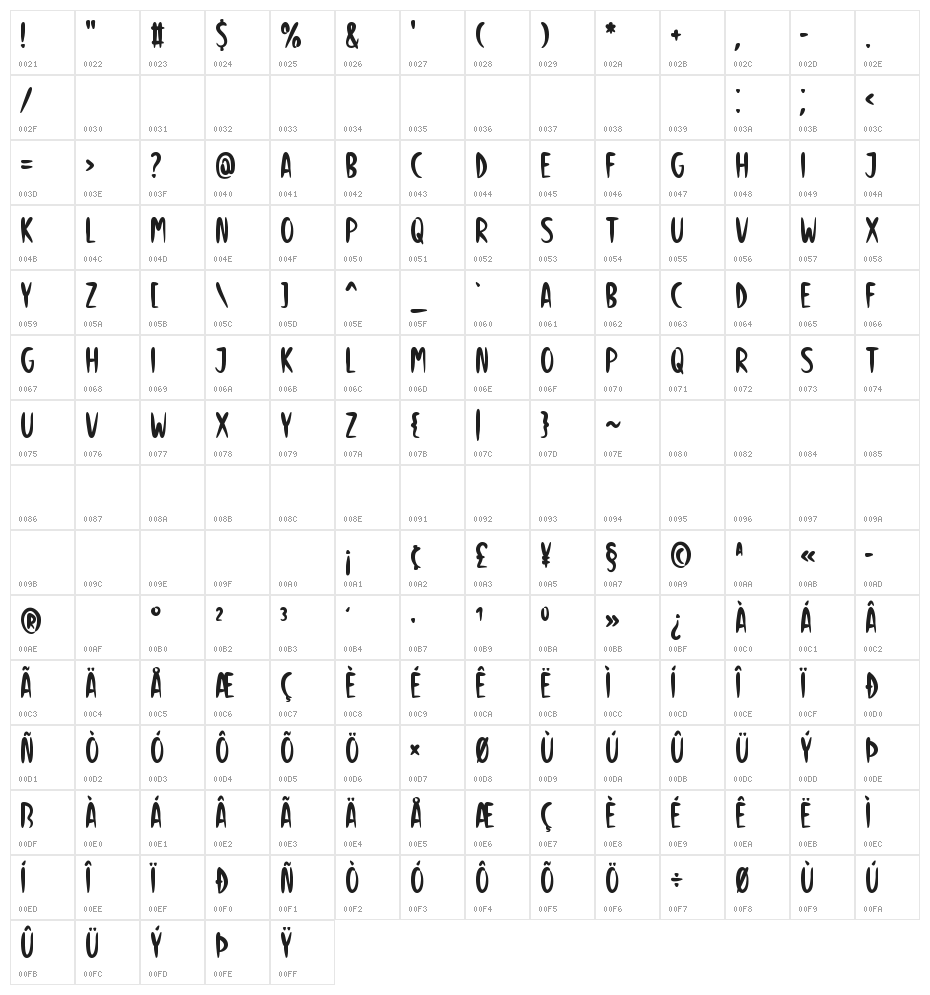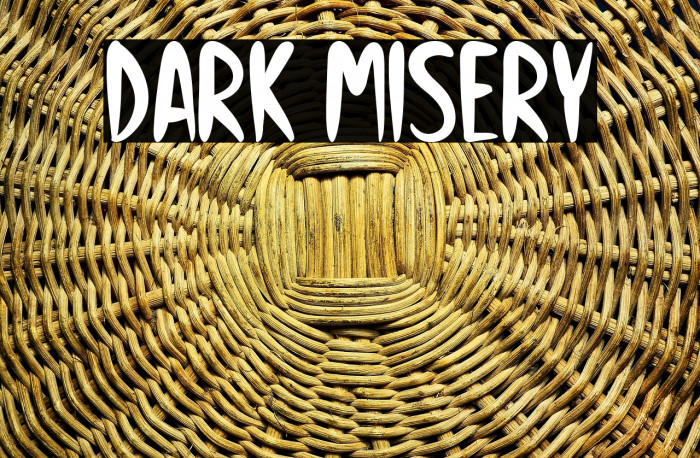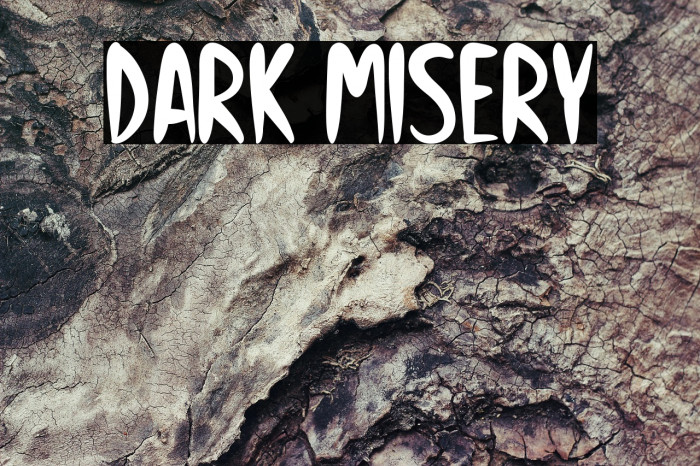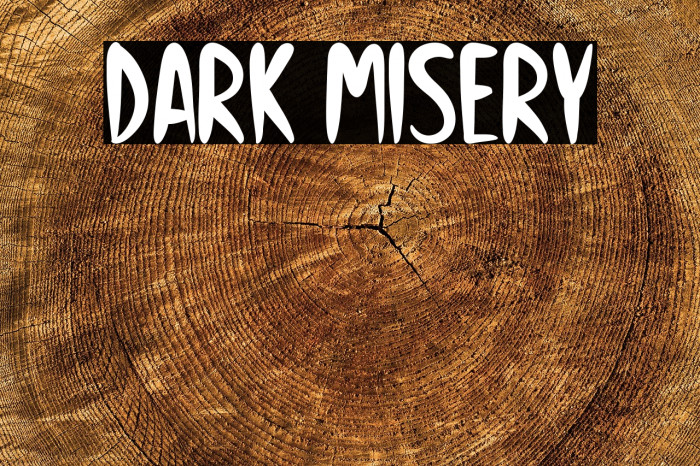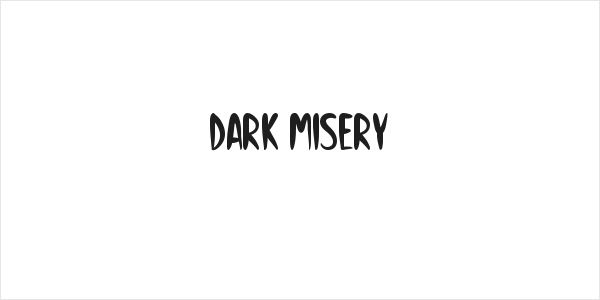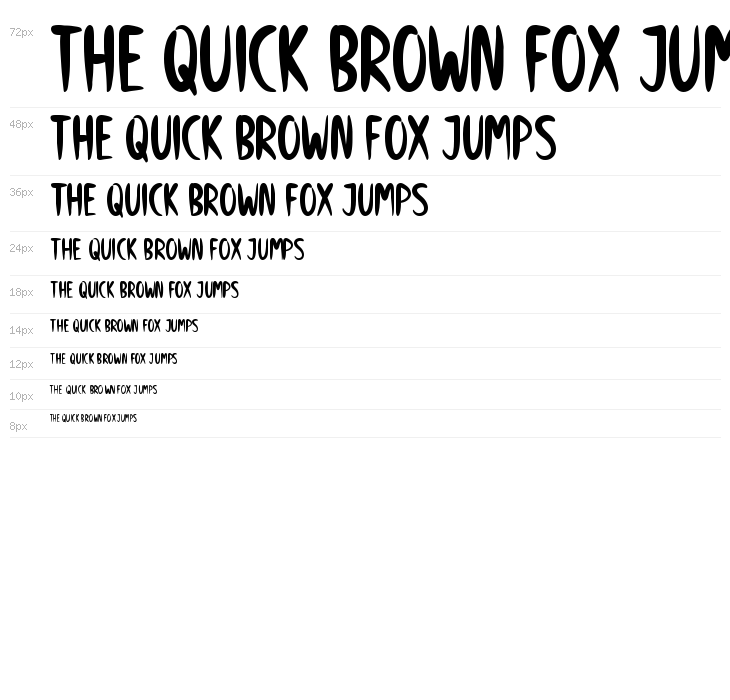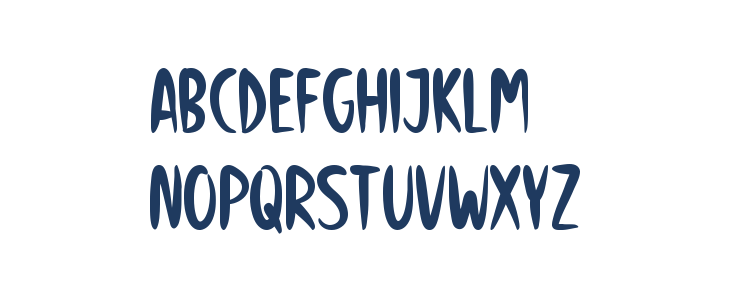
Dark Misery Font
Dark Misery Description
This font features a bold and playful style with a handwritten appearance. The characters are rounded and slightly irregular, giving it a casual and friendly look. The uppercase letters are tall and narrow, while the lowercase letters maintain a consistent height, contributing to a cohesive visual flow. The numbers and special characters follow the same playful aesthetic, making them suitable for creative projects. The overall design is approachable and versatile, ideal for adding a personal touch to various design elements.